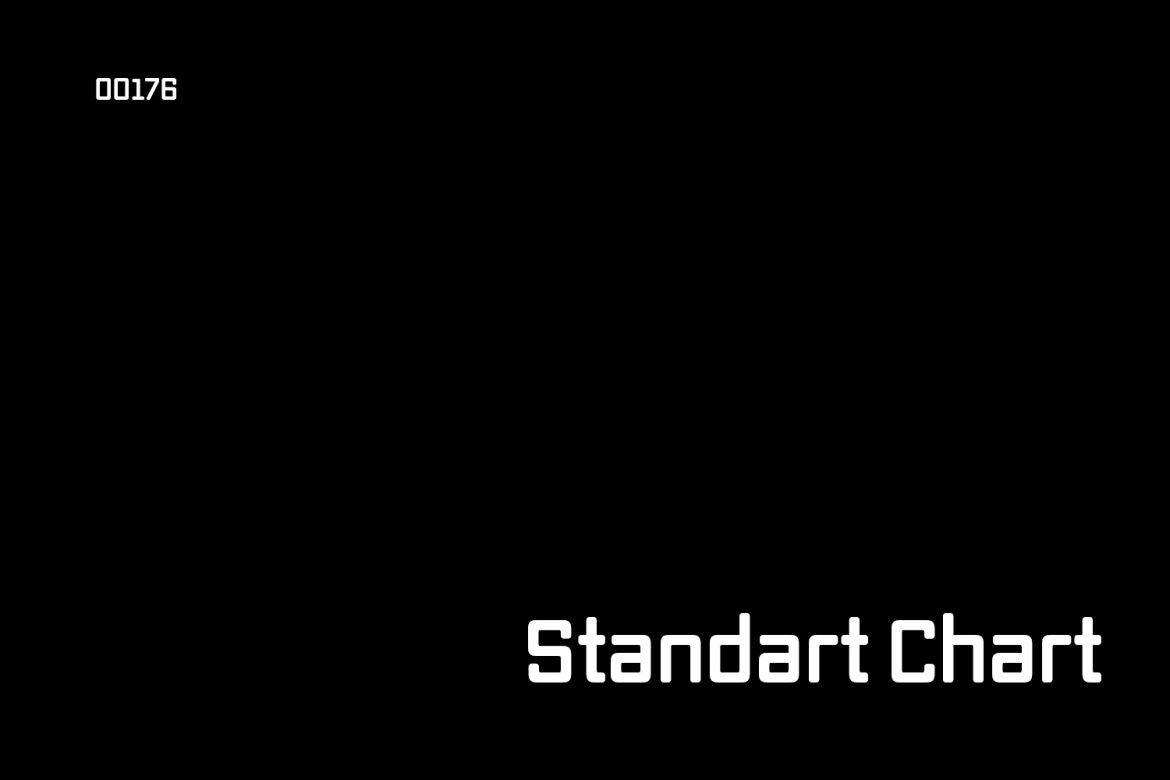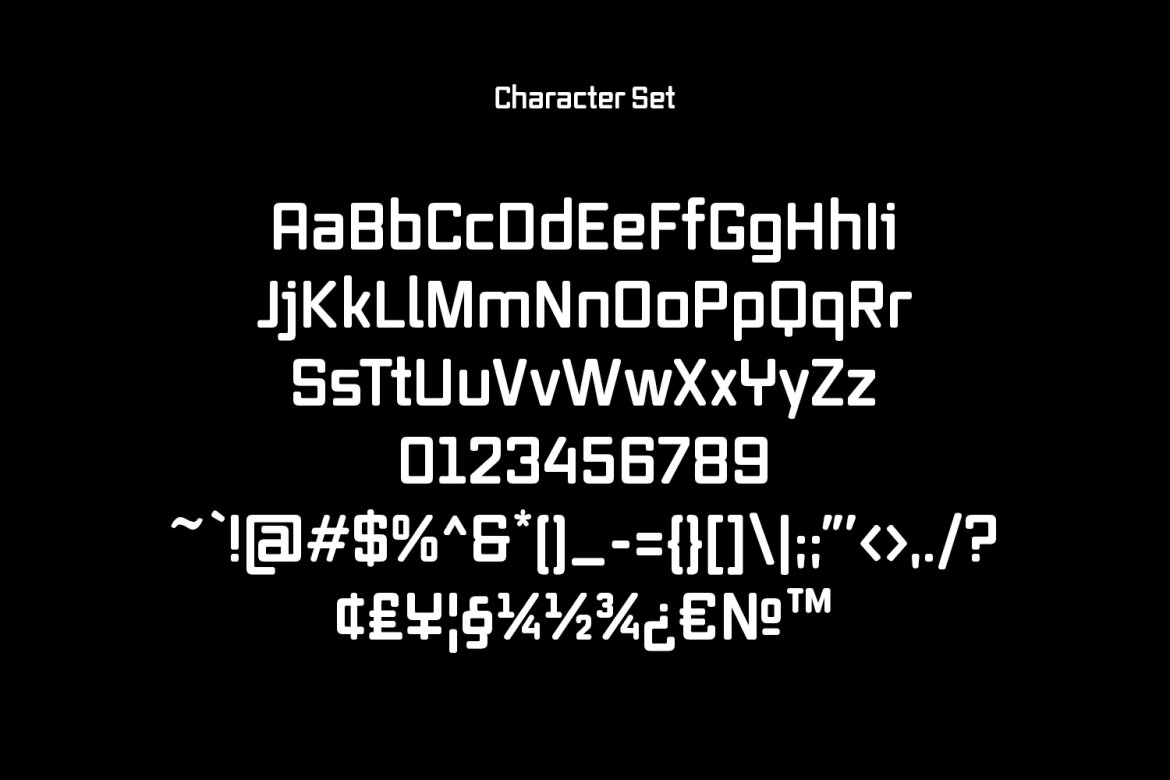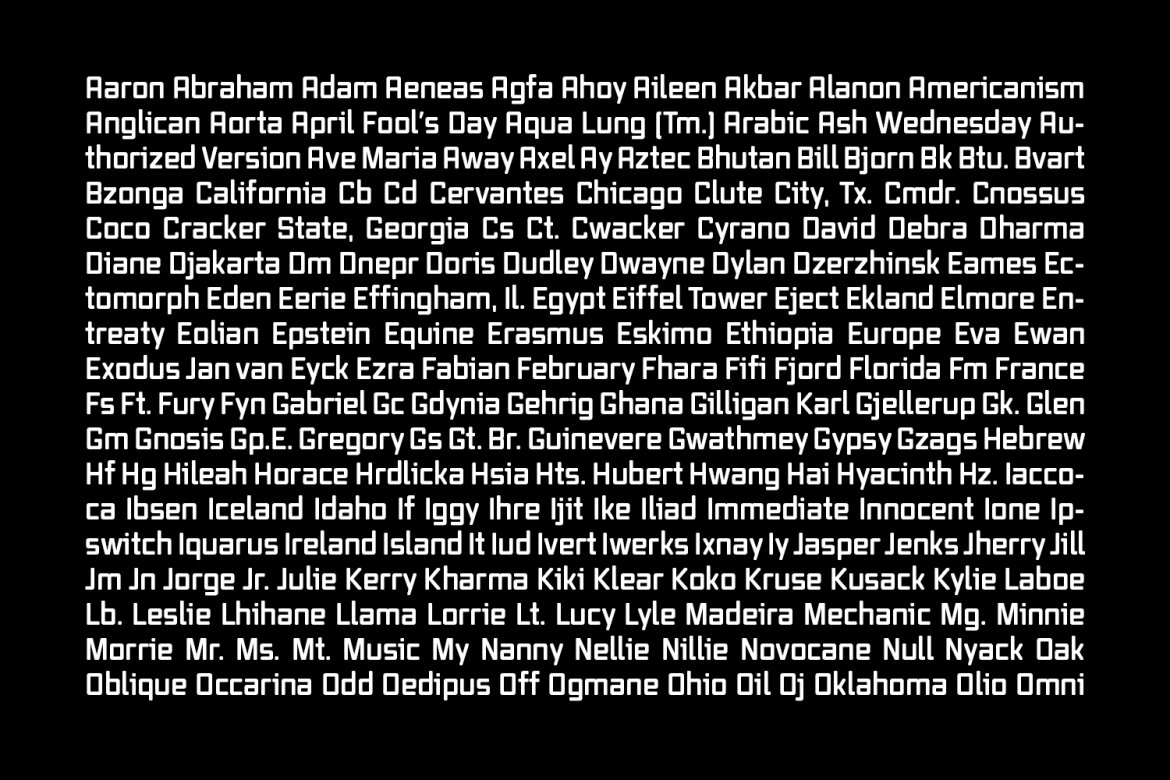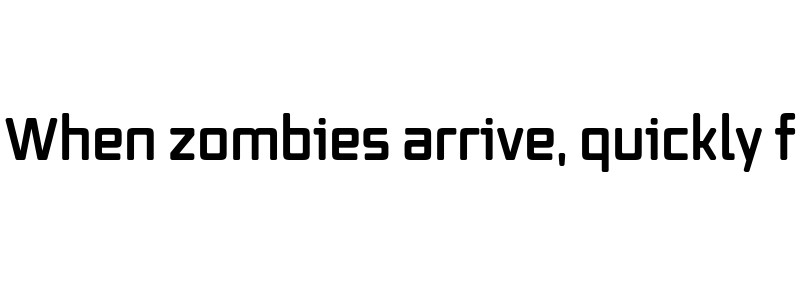
Bokkeh Tech Sans FREE Font
Bokkeh preview
Bokkeh
Bokkeh is a Square-is Tech sans Display font. Bold stroke, fun character with a bit of ligatures and alternates. To give you an extra creative work. Bokkeh font support multilingual more than 100+ language. This font is good for logo design, Social media, Movie Titles, Books Titles, a short text even a long text letter and good for your secondary text font with script or serif. Make a stunning work with Bokkeh font.